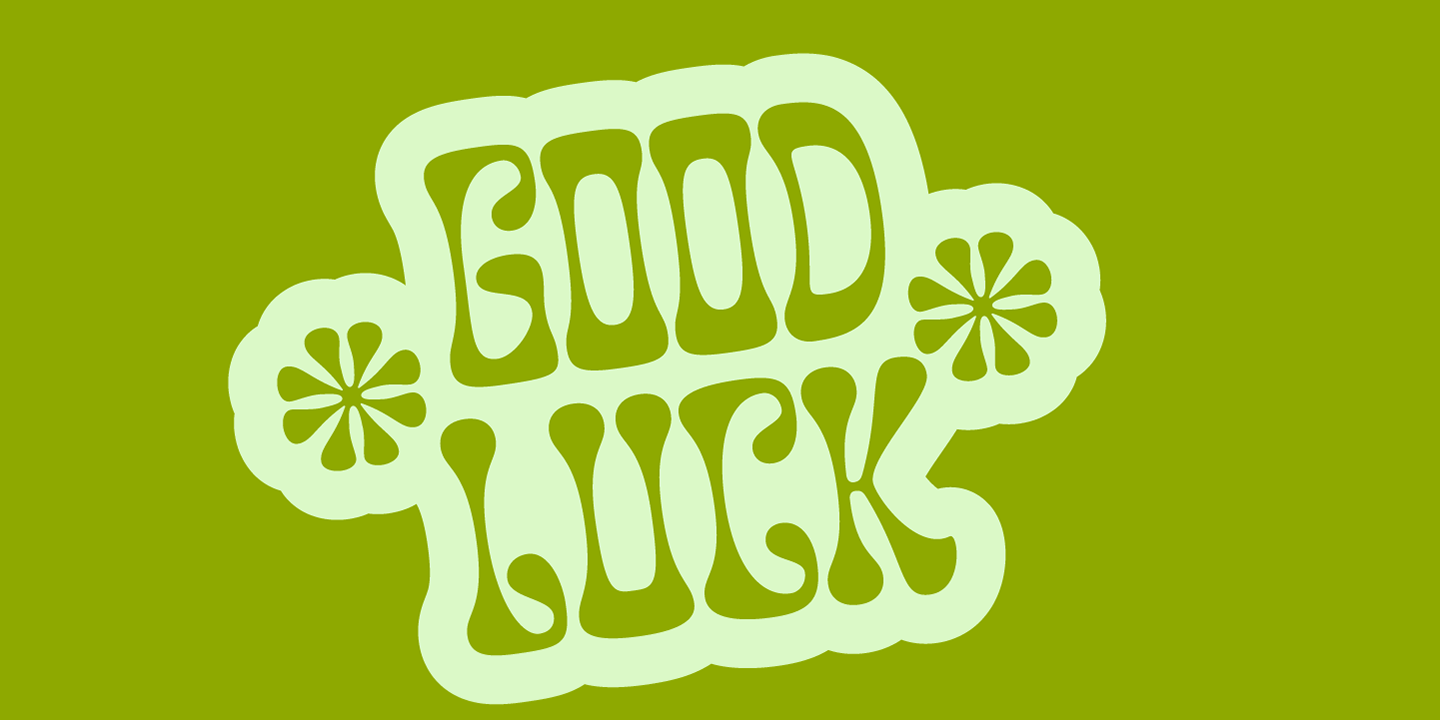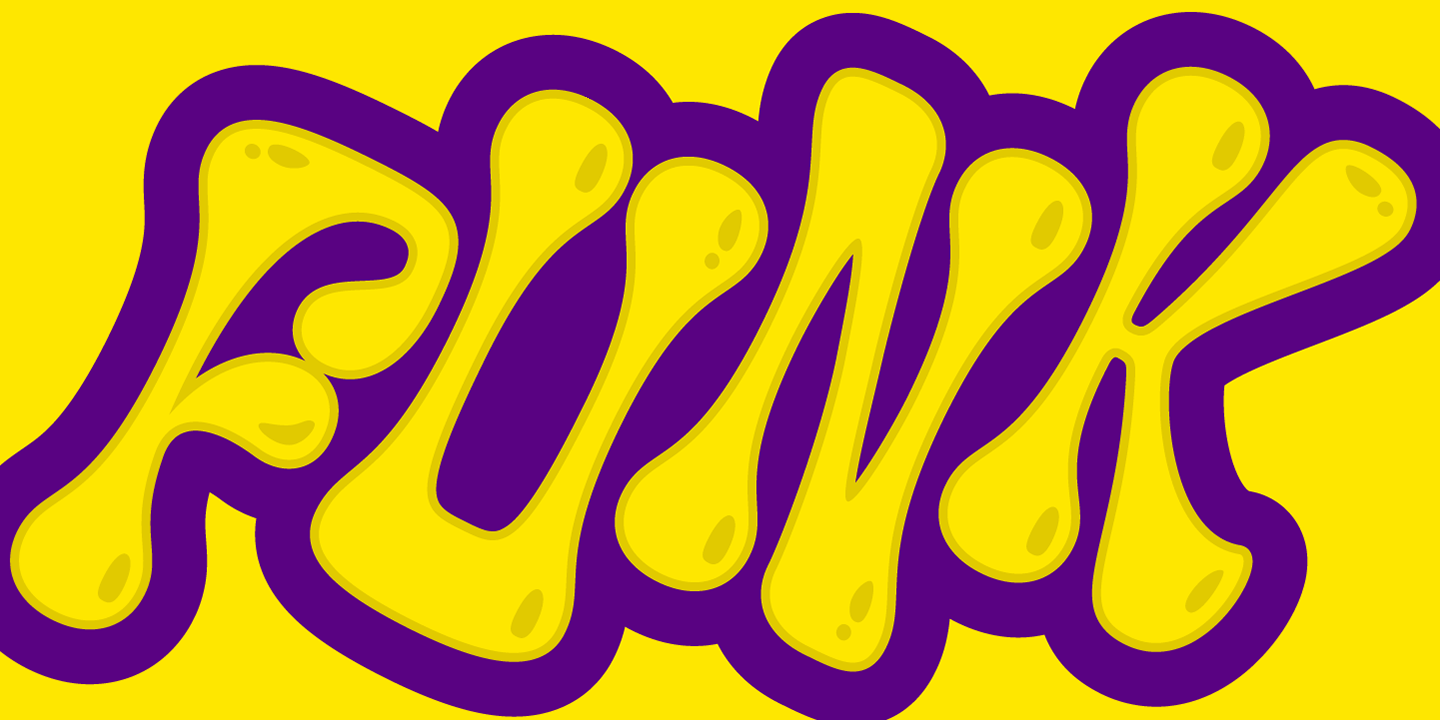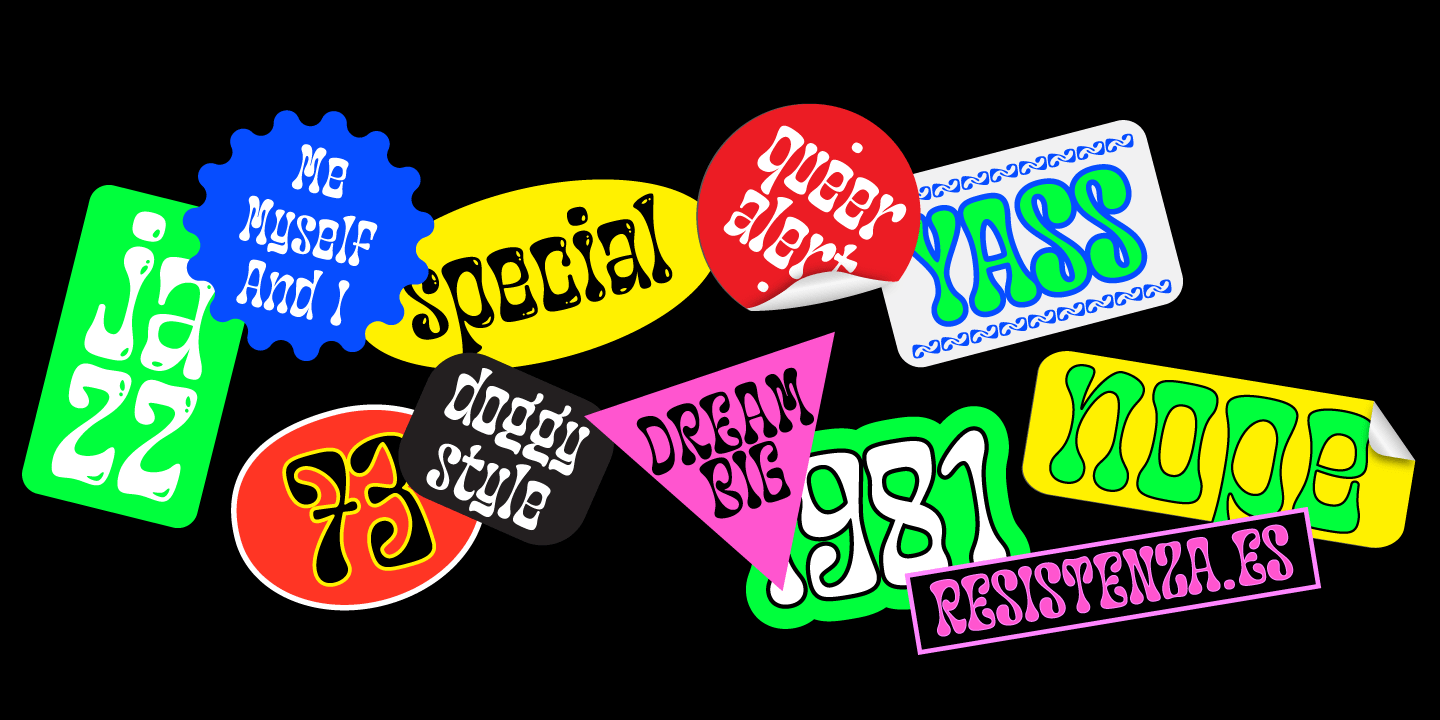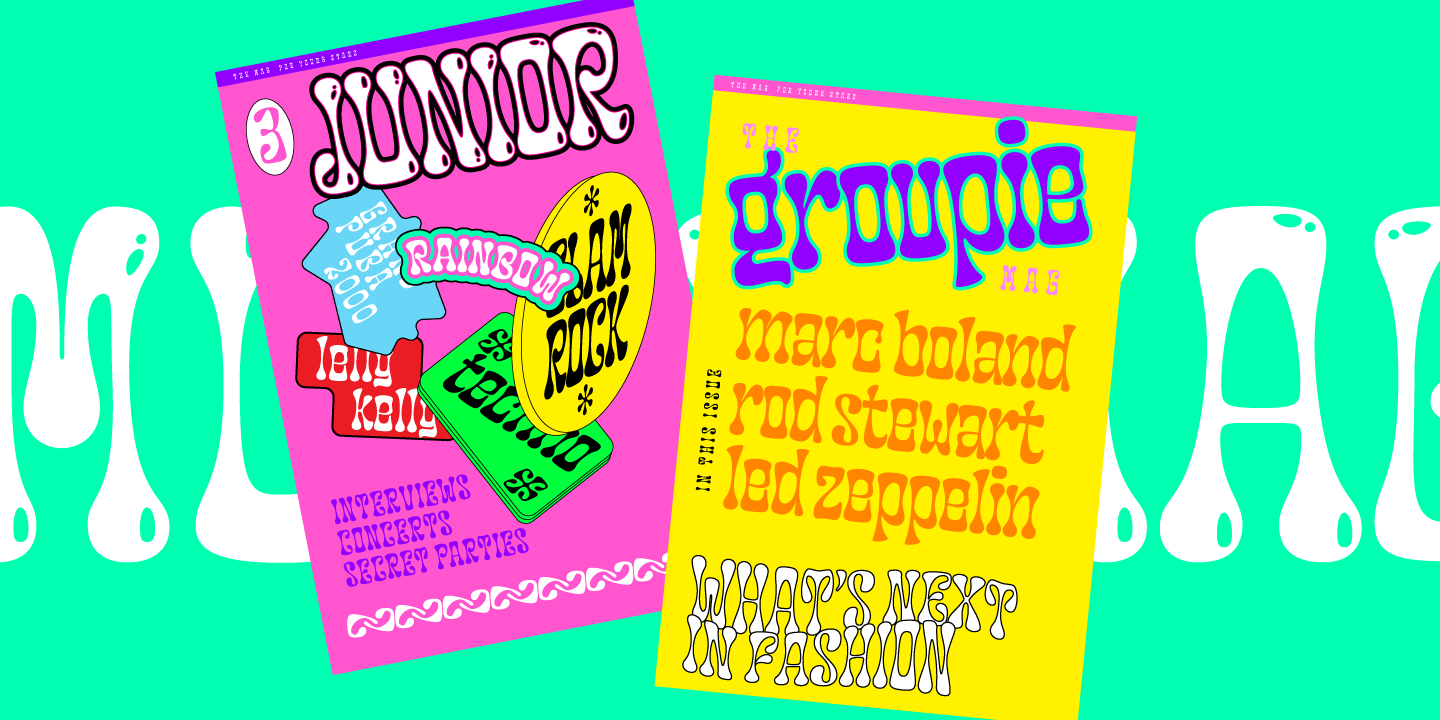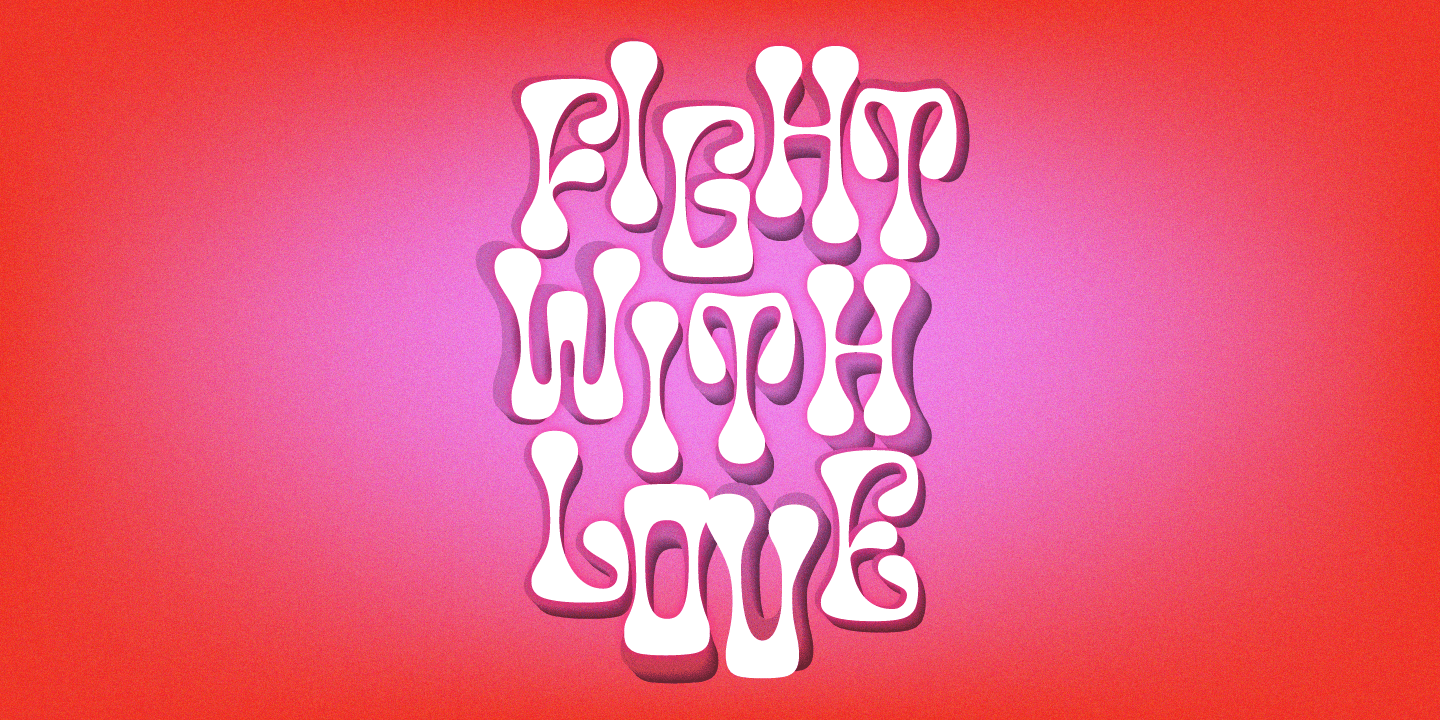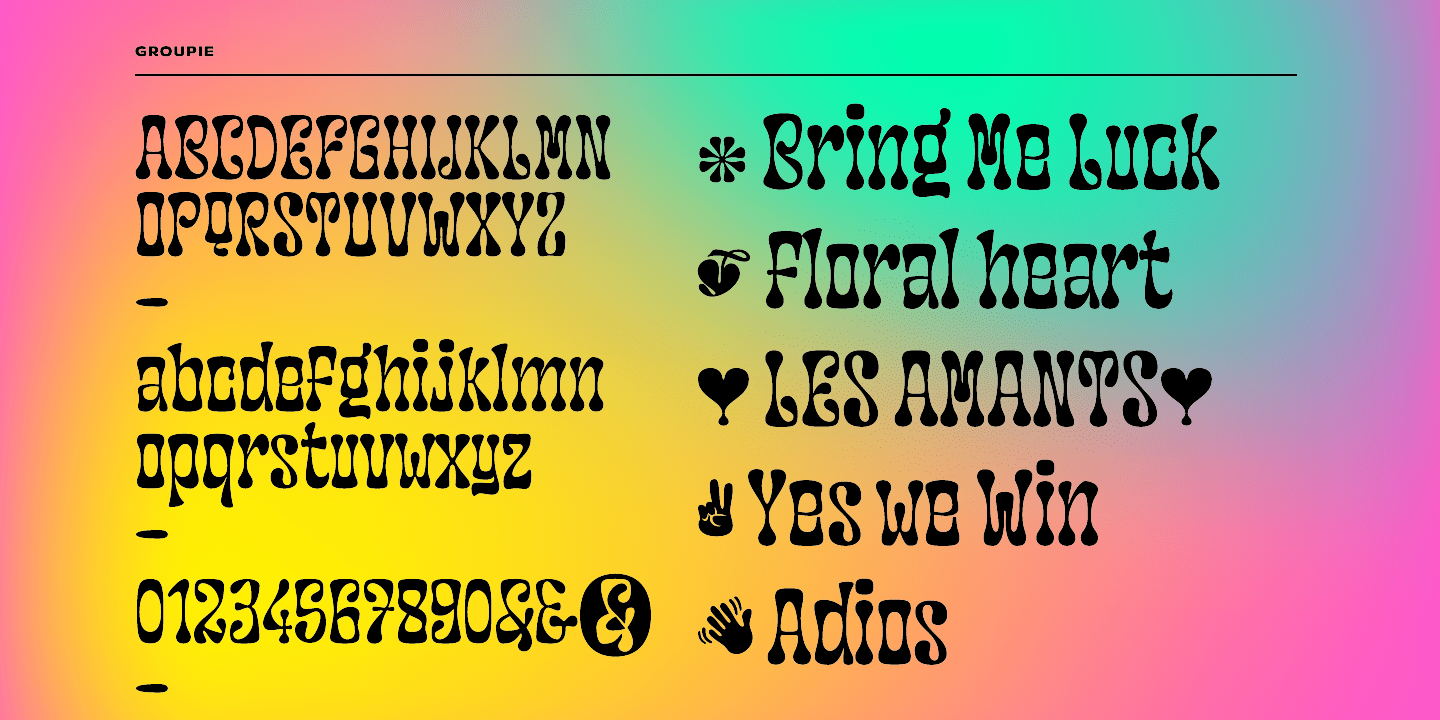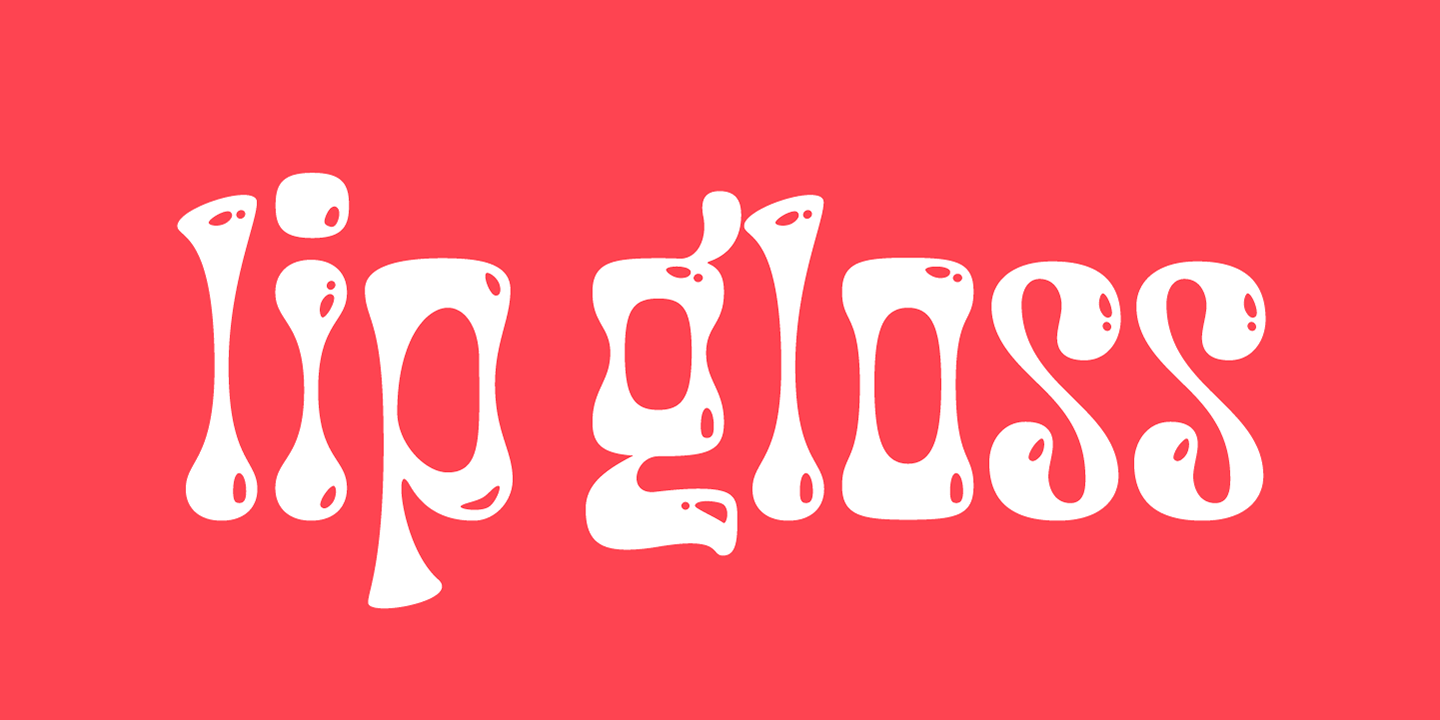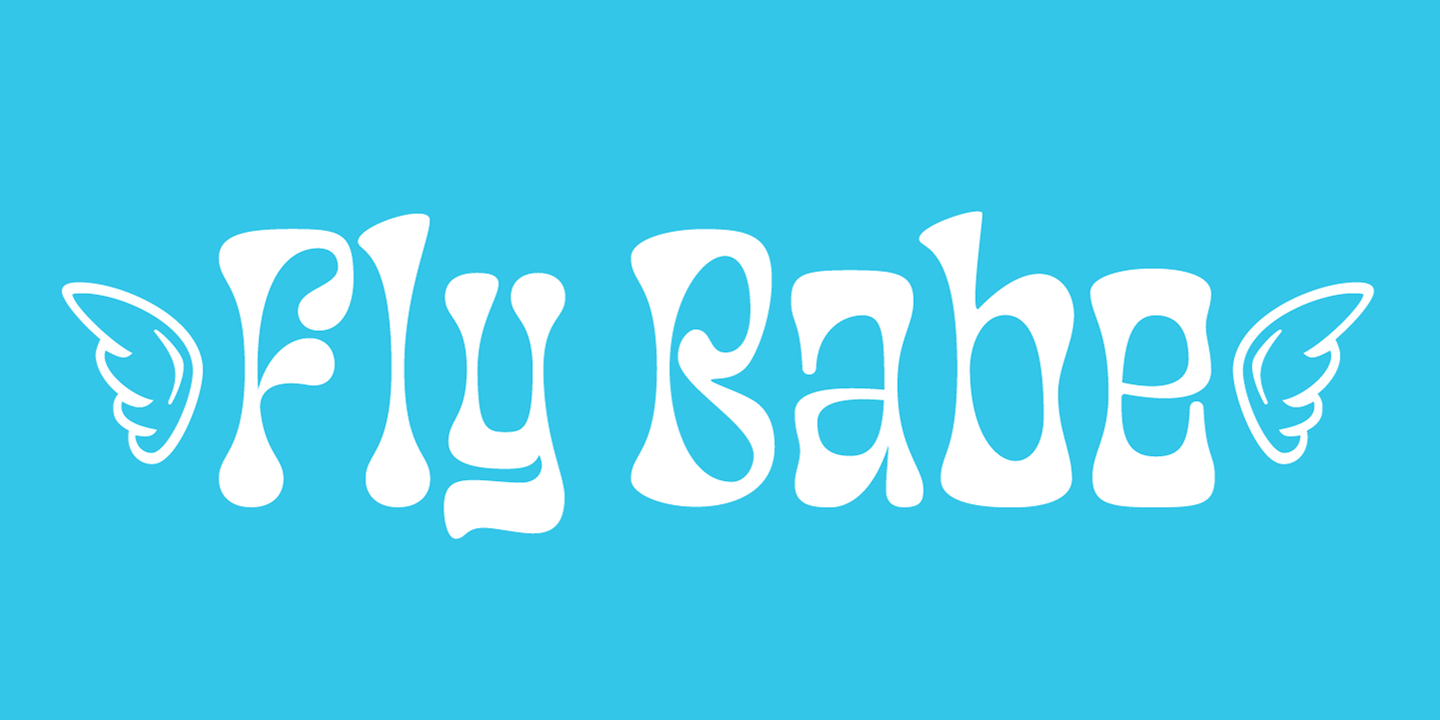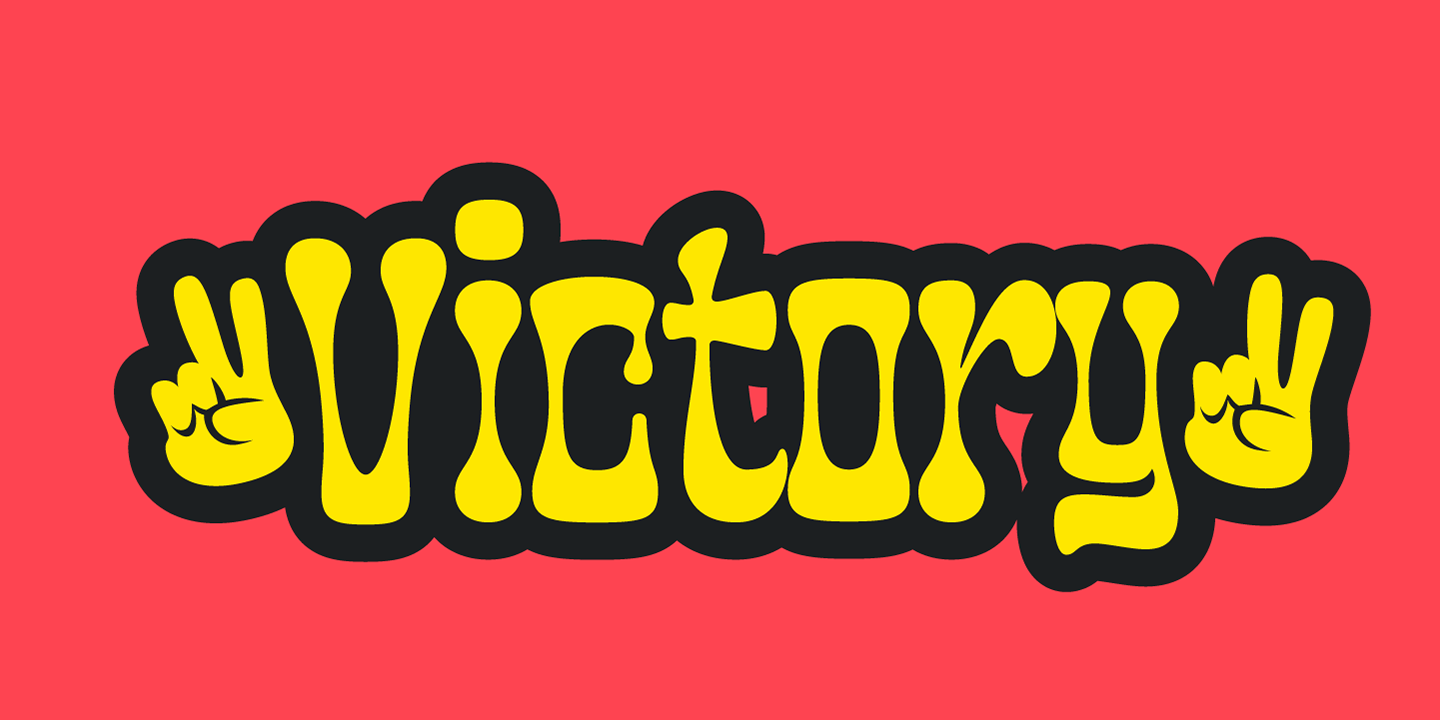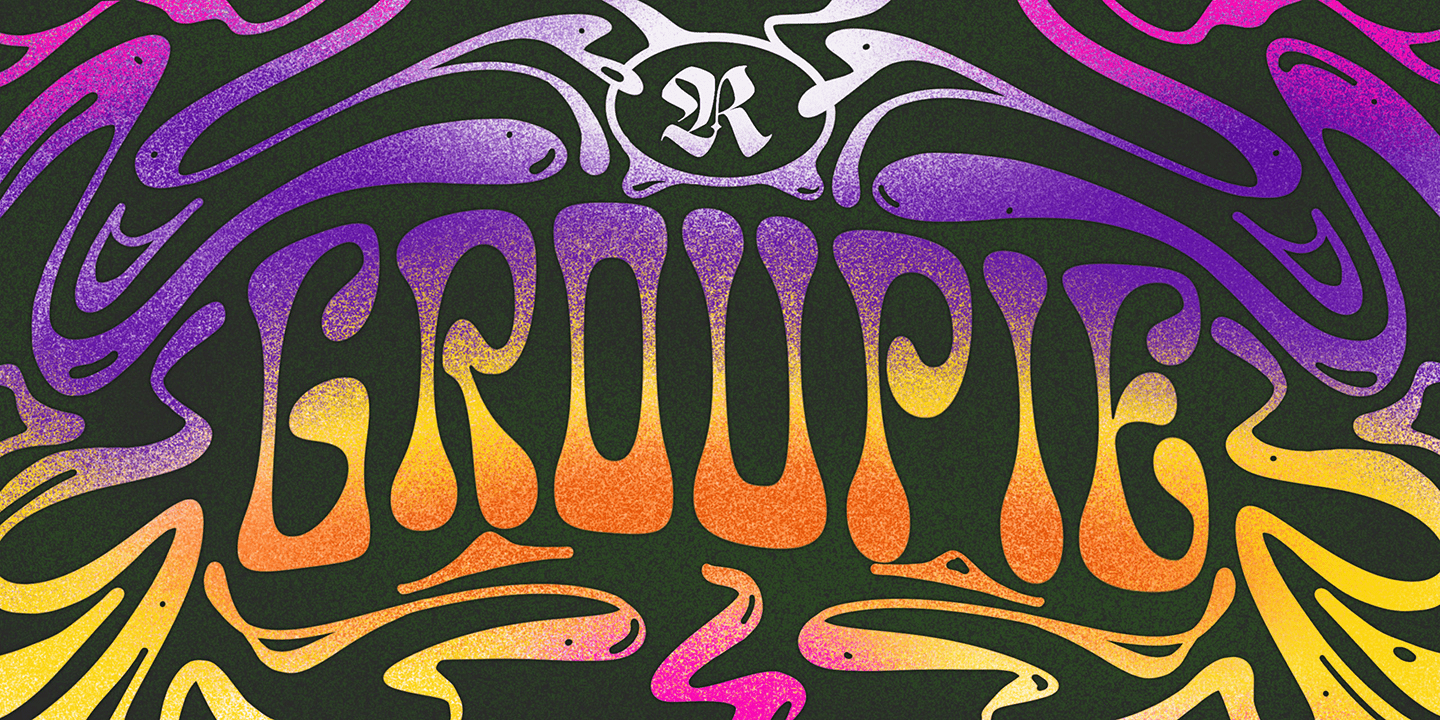
HomeFont BrosGroovy (1966-1978)Groupie Groovy (1966-1978)Wacky Groupie FacebookXPinterestWhatsApp 1 of 10 About Groupie The idea was to mix liberty lettering with 70\’s psychedelic posters and dedicate a font to Groupies. Check out the alternative glyphs and icons included. Have fun and be a Groupie  DOWNLOAD NOW People also explored Santa Font Speciality Font Funny Font Blackened Font Explorer Font Callient Font Mandala Handmade Font Manifesto Font Lovely Snowy Font 358 0 TagsGroupieGroupie Font Previous articleArtful DodgerNext articleLaserjerks LEAVE A REPLY Cancel reply Comment: Please enter your comment! Name:* Please enter your name here Email:* You have entered an incorrect email address! Please enter your email address here Website: Save my name, email, and website in this browser for the next time I comment. Personal Use Free Ontel Personal Use Free Read more about this font Shrag Script Personal Use Free Read more about this font Bajt Rounded Personal Use Free Read more about this font Theobald Personal Use Free Read more about this font BLOG Fonts That Capture the Spirit of New York City New York City is more than just a place—it’s an experience, a rhythm, a visual language... Free vs Paid Fonts: Why Investing in Premium Fonts Is Worth It Free Fonts Risk: Why Free Fonts Can Be Dangerous for Designers The 10 Best Handwriting Fonts to Add Personality to Your Designs